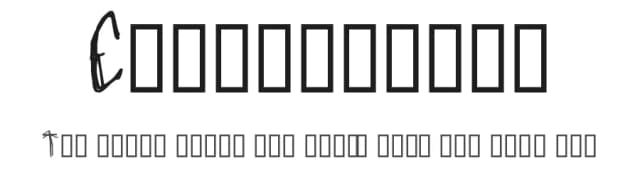
About Mudshovel Font
Mudshovel is a script & handwritten font designed by Spork Thug Typography. It includes 72 glyphs, a regular weight, TTF (TrueType) format, and 102 languages. Mudshovel is free to download; check the license details on this page before commercial use. Script & handwritten fonts like Mudshovel work best for wedding invitations, greeting cards, signatures, and elegant branding.
Mudshovel Font is a script font that shines as a display or heading face. Pair it with a clean sans-serif or serif font for body text β the contrast creates a clear hierarchy while the two styles stay balanced and easy to read.
Mudshovel Font
Mudshovel Font is a script handwritten typeface by Spork Thug Typography, ideal for logos, invitations, branding, and creative projects.